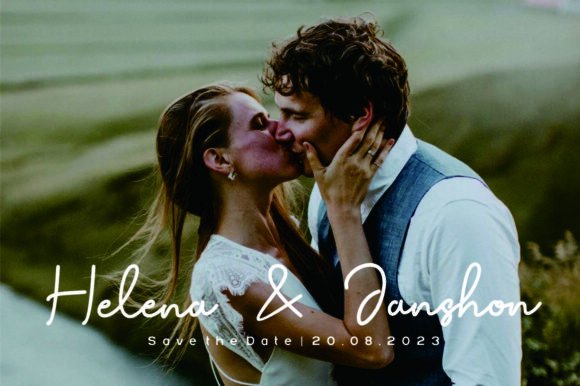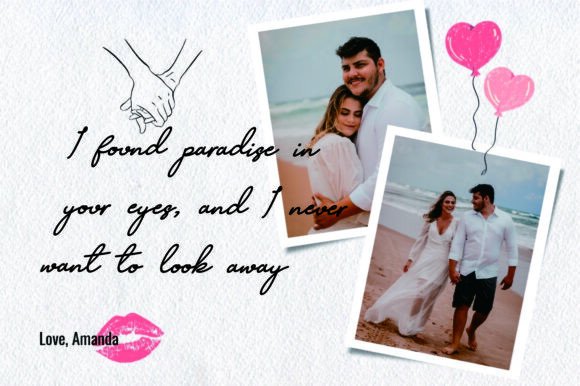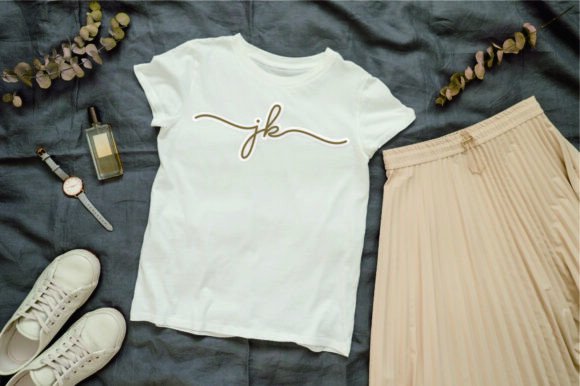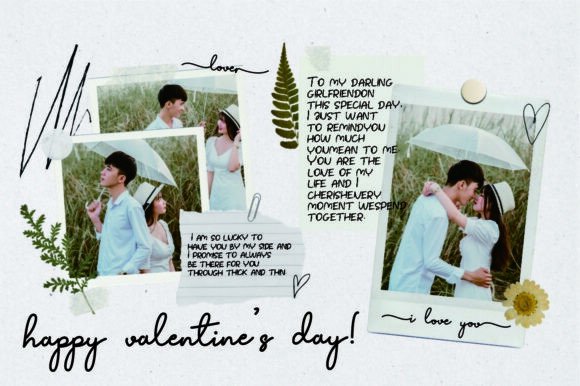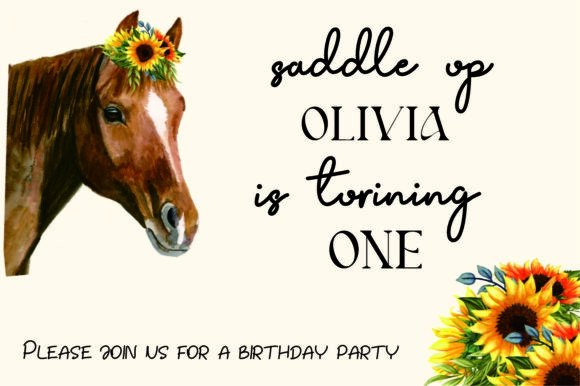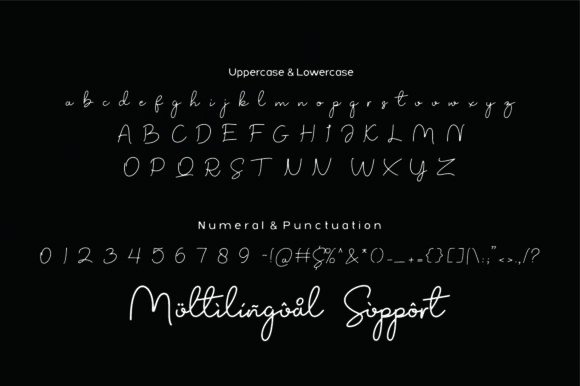
Introduction to Olimela Font
Have you ever found yourself rummaging through your old journals, searching for the perfect handwritten font to add a touch of personality to your design project? The search is over. Introducing Olimela Font, a beautiful and elegant handwritten script font that combines the charm of natural handwriting with modern sophistication.
As a designer, you understand the importance of selecting the right font to convey your message and evoke the desired emotions. Olimela Font is more than just a design resource – it’s a high-quality asset that can elevate your creative project from ordinary to extraordinary. With its flowing strokes and gentle curves, this font is perfect for wedding invitations, branding, logos, packaging, and social media graphics.
Whether you’re looking for a free download or a premium option, Olimela Font is a valuable addition to your design toolkit. Its transparent background and artistic appeal make it an ideal choice for designers who want to add a personal touch to their projects without compromising on readability. Get ready to unleash your creativity with Olimela Font.
Key Features of Olimela Font
- Unique, hand-drawn design with a high level of detail, making it a great design resource for creative projects.
- Features a transparent background, giving designers the freedom to place the font over any background image or color.
- High-quality design with crisp lines and smooth curves, suitable for a wide range of applications, from print to digital media.
- Perfect for use in creative projects, such as logos, branding, and packaging design, where a unique and eye-catching font is essential.
Honest Review: Olimela Font
I recently had the chance to work with the Olimela Font, and I must say it’s been a pleasant experience. This font is perfect for designers looking for a high-quality design resource for their creative projects.
- ✨ High-quality typography with precise lines and shapes.
- ✨ Smooth curves and a modern aesthetic that’s perfect for contemporary designs.
- ⚠️ Some users may find the font’s style a bit too modern or edgy for their taste.
Overall, I’m quite impressed with the Olimela Font. It’s a solid choice for designers who want a reliable and high-quality font for their free download needs. I’ve enjoyed using it for my creative projects, and I think you will too.
Common Use Cases for Olimela Font
The Olimela Font is versatile and can be used in a variety of settings, including social media graphics, blog posts, presentations, and documents. Its transparent background makes it perfect for designing graphics with complex backgrounds or for creating custom icons.